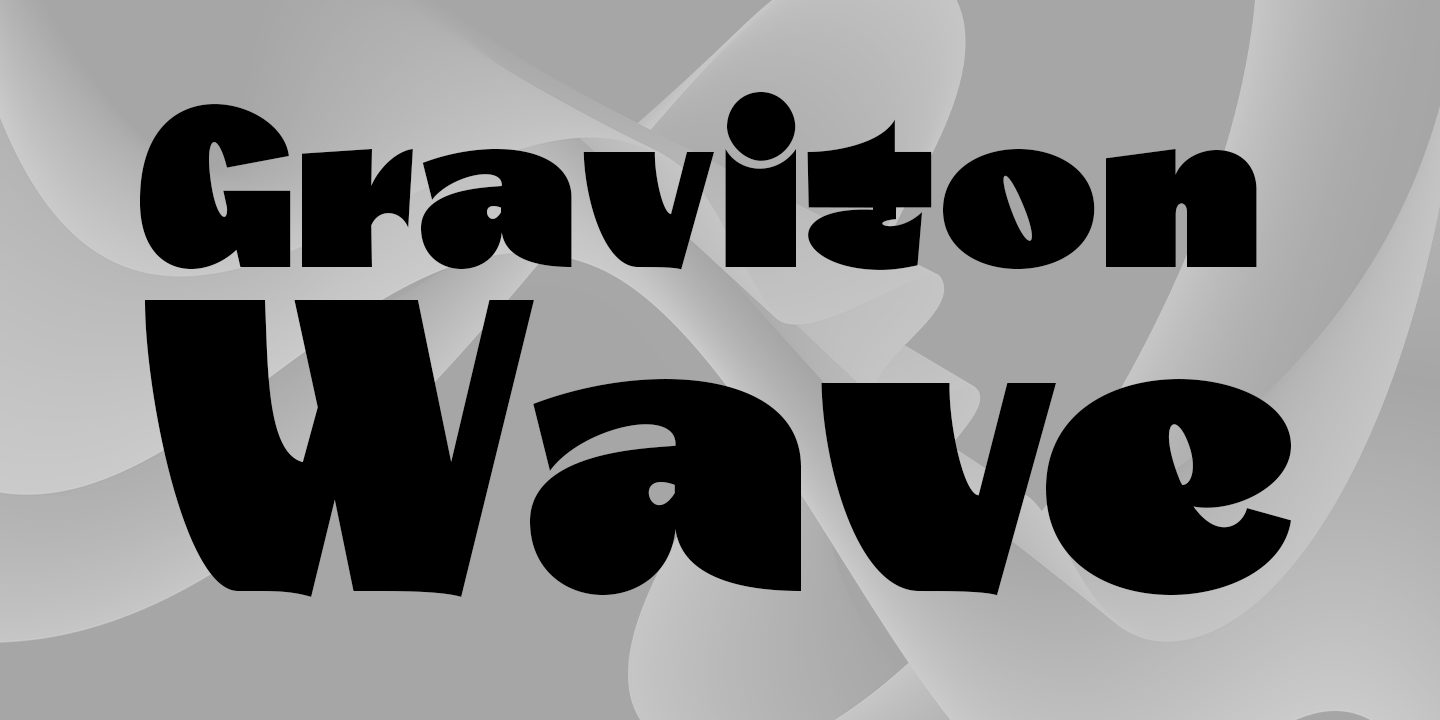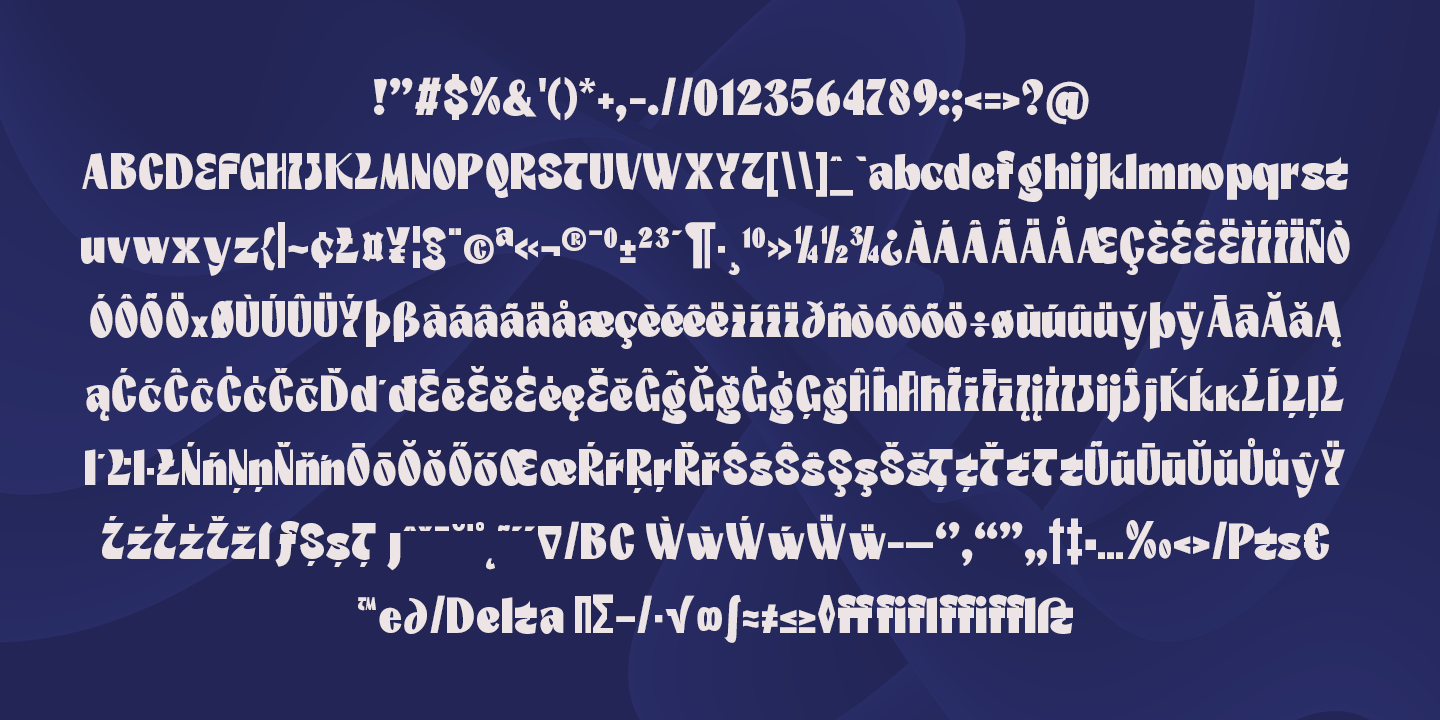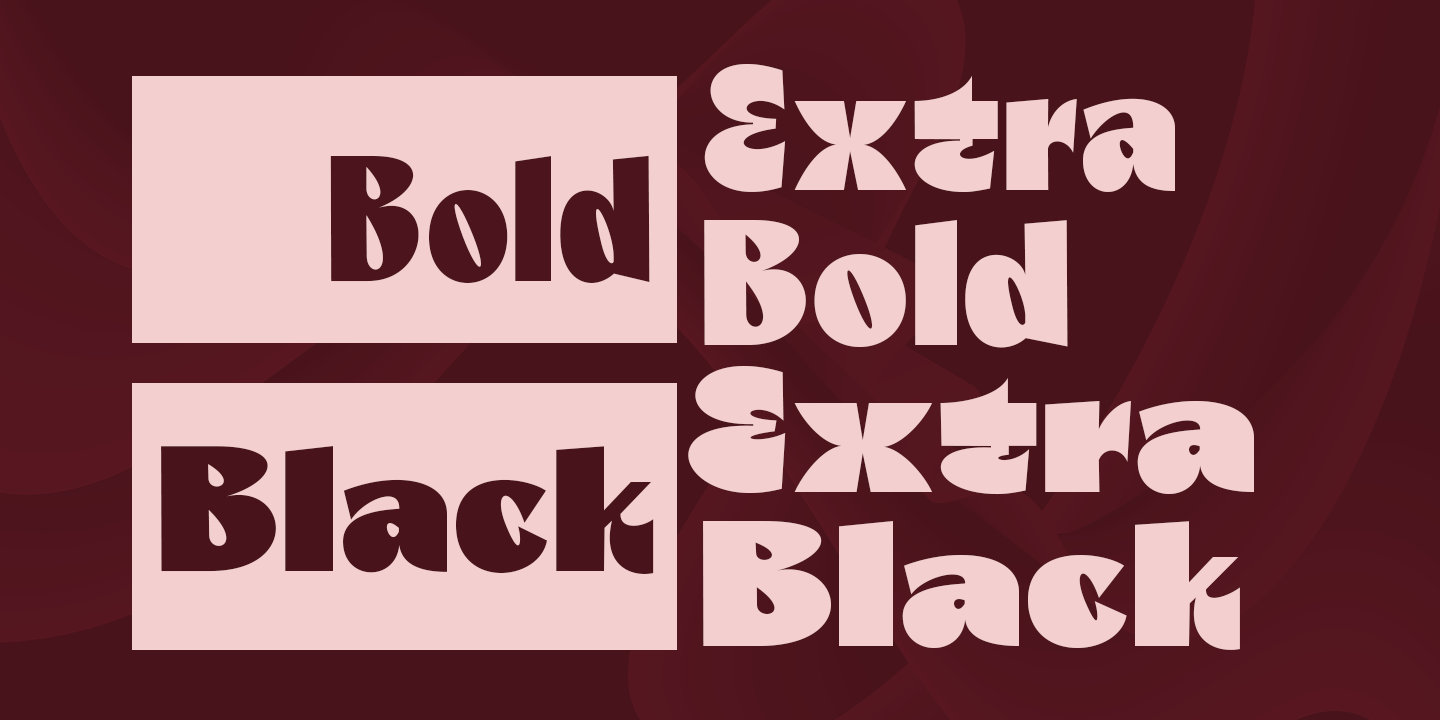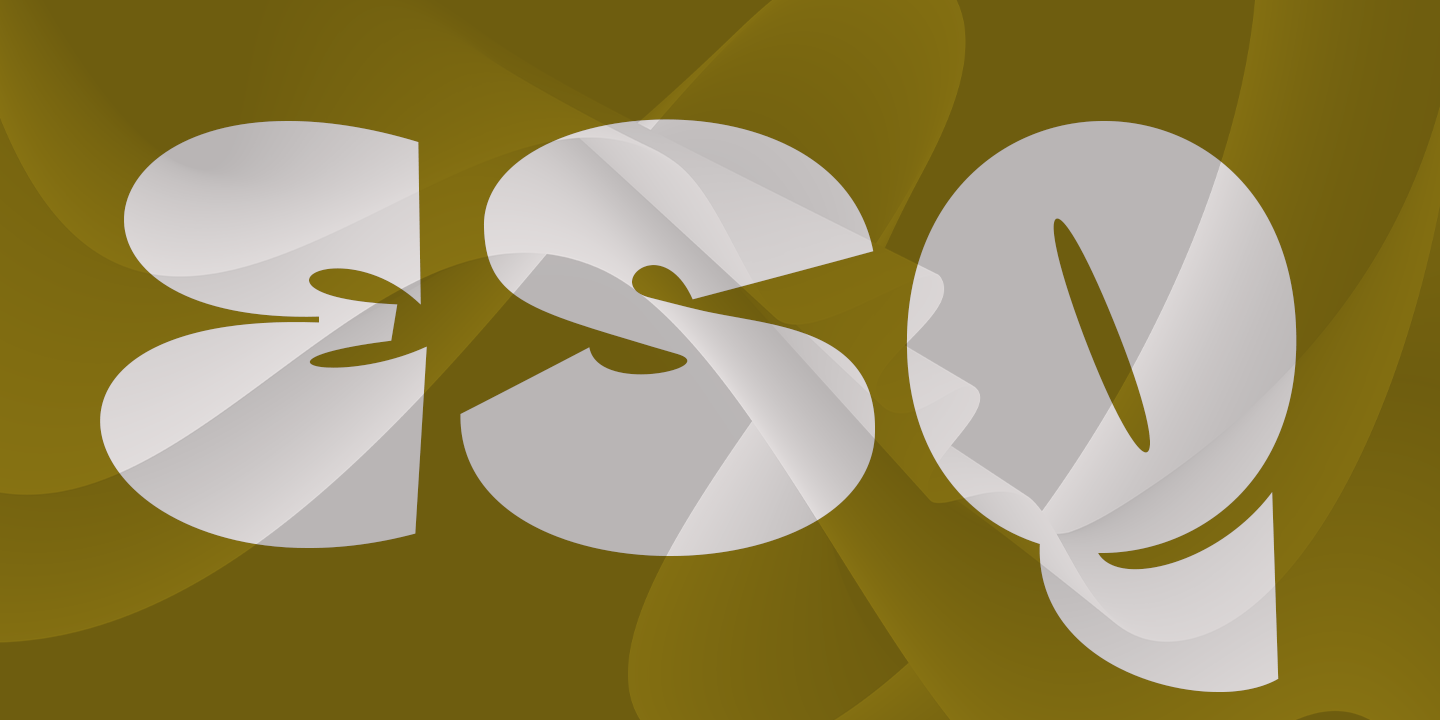
The Quality Level
The Quality Level is a bold display type. Simple in a good way and efficient with tight kernings making it a nice choice if you want a retro look in your design. Every single letter has been carefully crafted to make your text look beautiful. With lettering script style this font will be perfect for many different projects.
The Quality Level is a font family that has 4 variations.